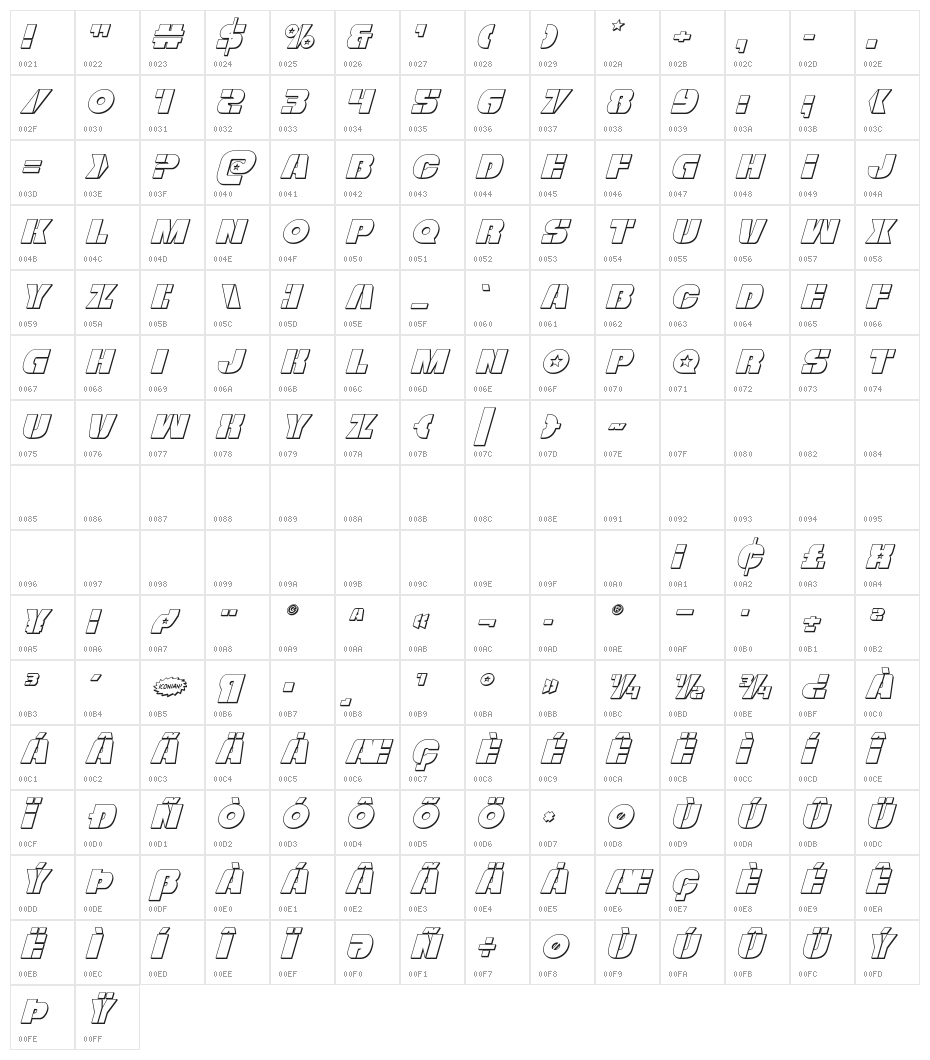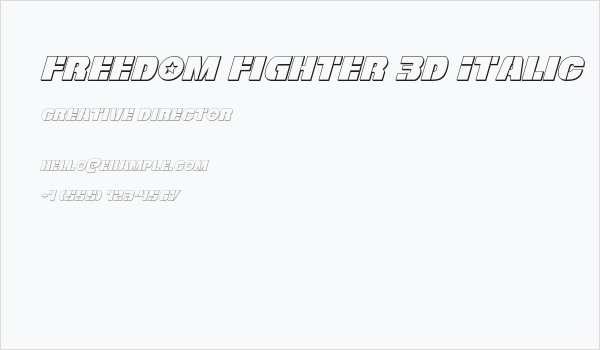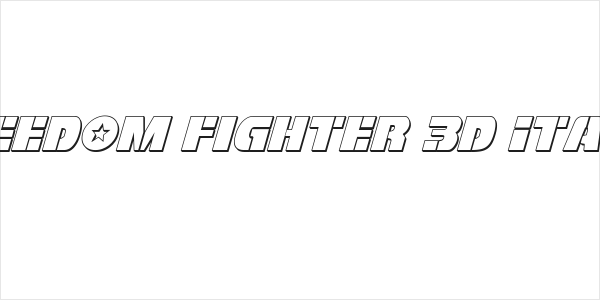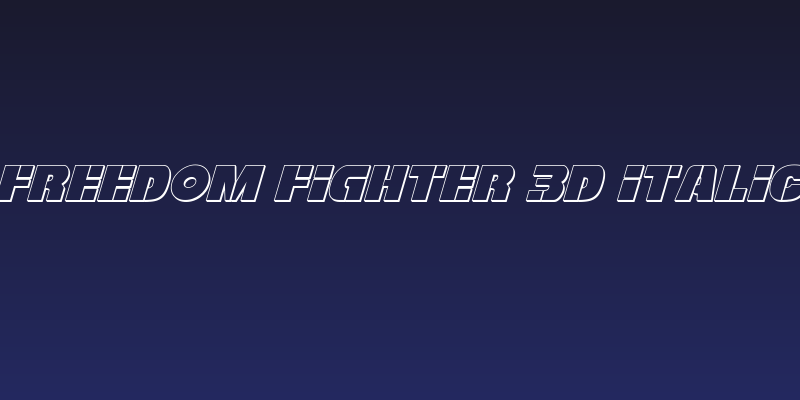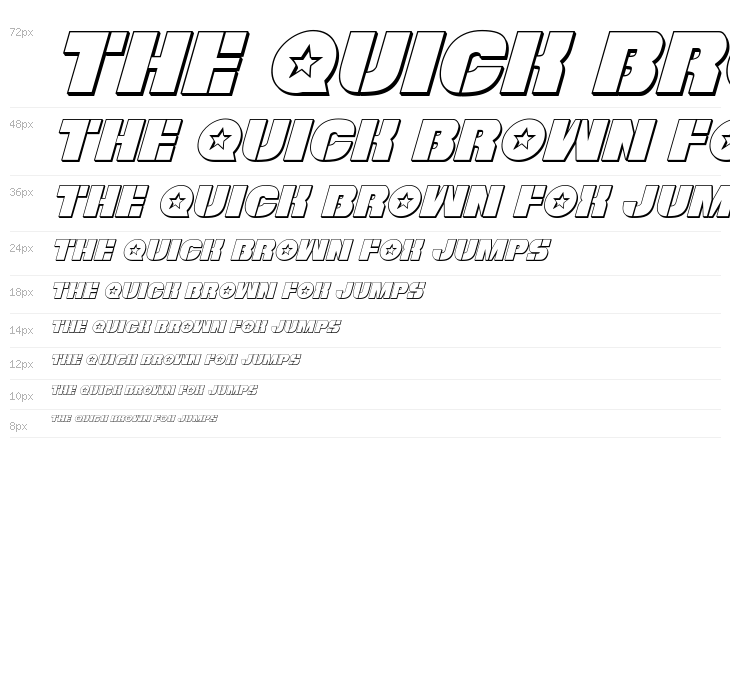
Freedom Fighter 3D Italic Font
Freedom Fighter 3D Italic Description
This font features a bold, three-dimensional style with an italic slant, giving it a dynamic and impactful appearance. The characters are outlined, creating a hollow effect that enhances the 3D illusion. Each letter is designed with a consistent thickness, contributing to a cohesive and uniform look. The uppercase and lowercase letters maintain a similar style, with the lowercase being slightly smaller in size. The numerals and special characters follow the same design principles, ensuring visual harmony across all elements. This font's unique design makes it suitable for projects that require a strong and eye-catching typeface.
| Proposed Projects | Ideal for posters, logos, video game graphics, and any project needing a bold, standout typeface. |